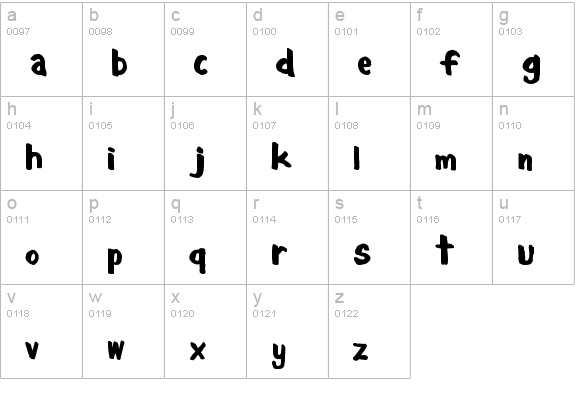
Cheesewiddler Font Details
Cheesewiddler font is a charming and playful typeface that exudes a sense of whimsy and creativity. With its unique design and quirky details, this font is perfect for adding a touch of fun to your projects. The Cheesewiddler font is free to download at FontsMarket.com, making it accessible to all designers and creatives looking to add a touch of personality to their work. Its versatile nature allows it to be used in a variety of design projects, from branding and packaging to social media graphics and more. Embrace the playful spirit of Cheesewiddler font and elevate your designs with its delightful charm.